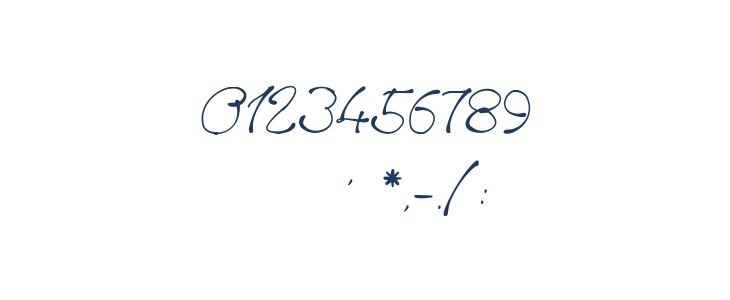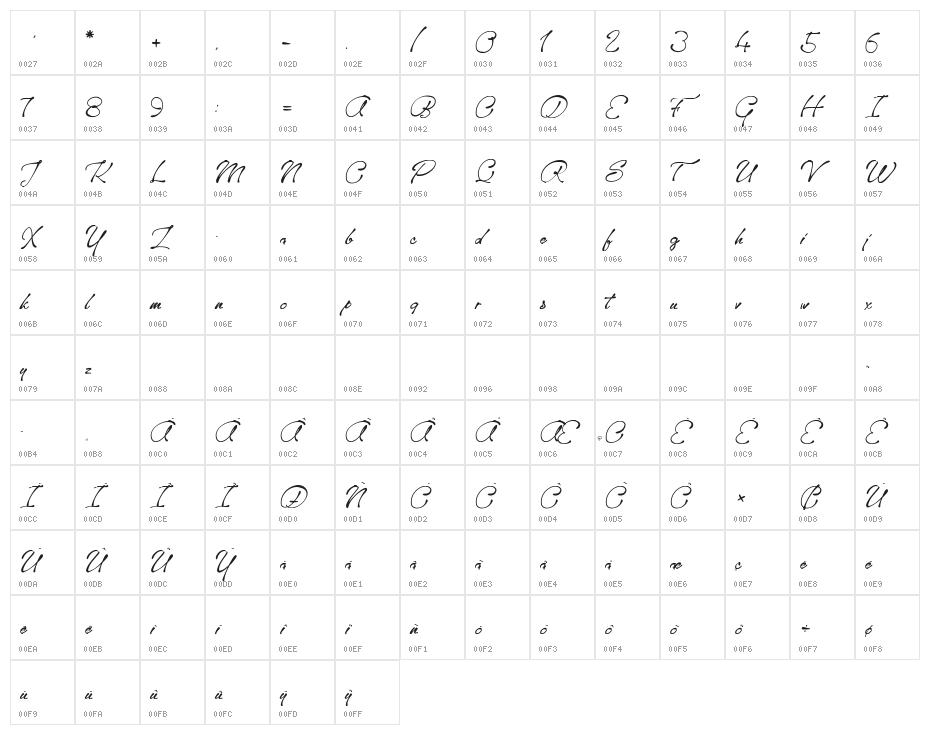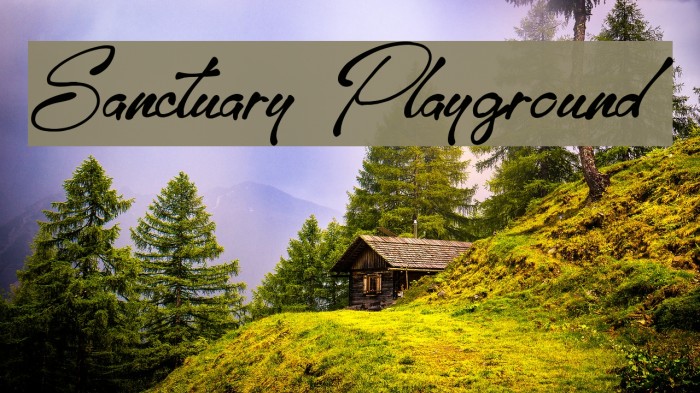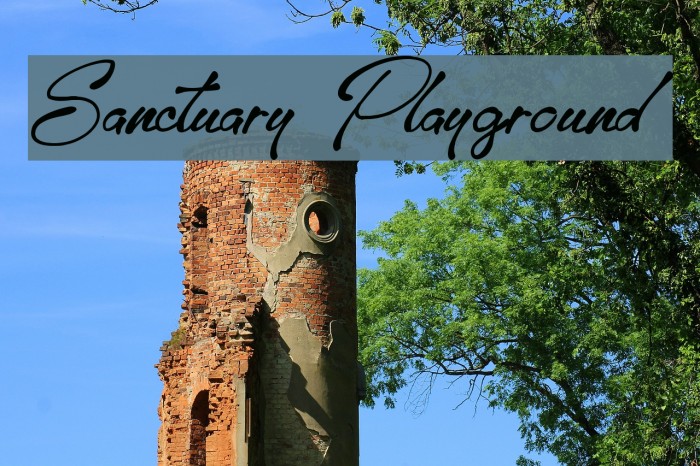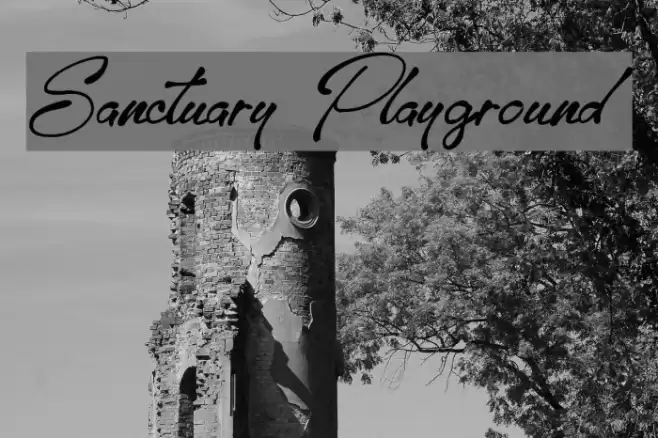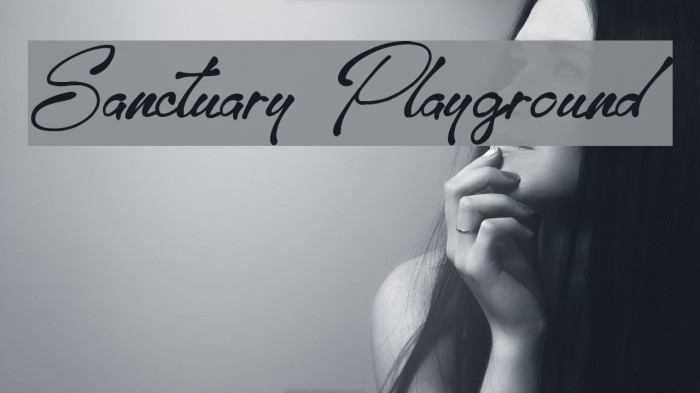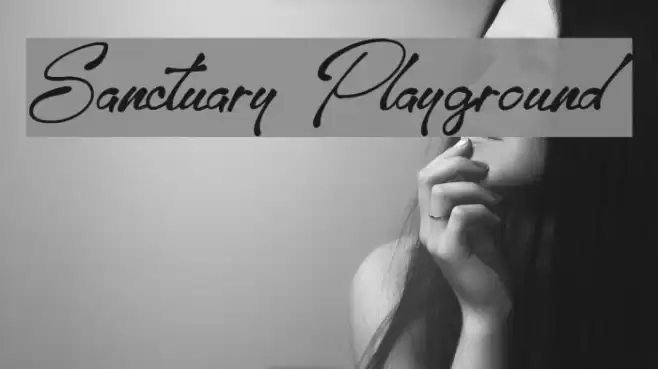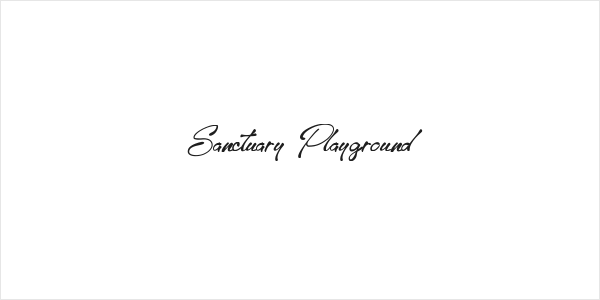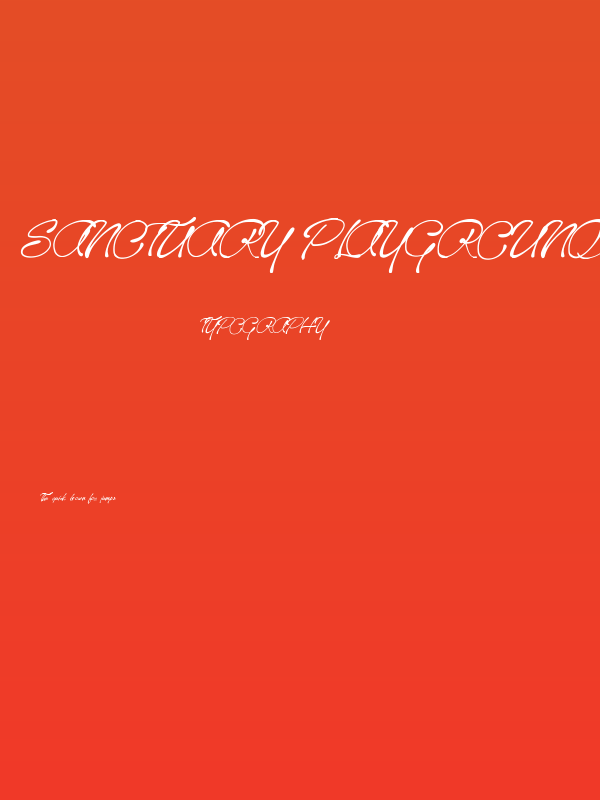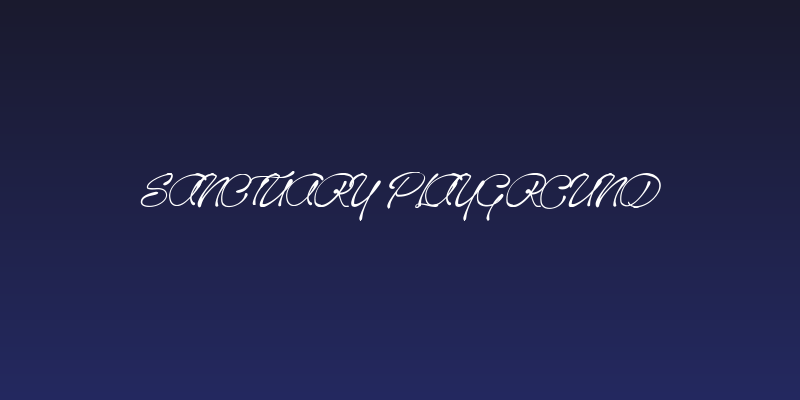
Sanctuary Playground Font
Sanctuary Playground Description
This elegant script font features a flowing, cursive style with a sophisticated flair. The uppercase letters are ornate and sweeping, with graceful loops and flourishes that give a sense of movement and fluidity. The lowercase letters are more restrained but maintain the same elegant curves, creating a harmonious balance. The numerals are distinct and stylish, complementing the overall aesthetic. Special characters are thoughtfully designed to match the font's refined style. This font is perfect for projects that require a touch of elegance and sophistication.
| Overall Style | Elegant, Sophisticated |
| Proposed Projects | Ideal for wedding invitations, elegant branding, high-end product packaging, and personal stationery. |